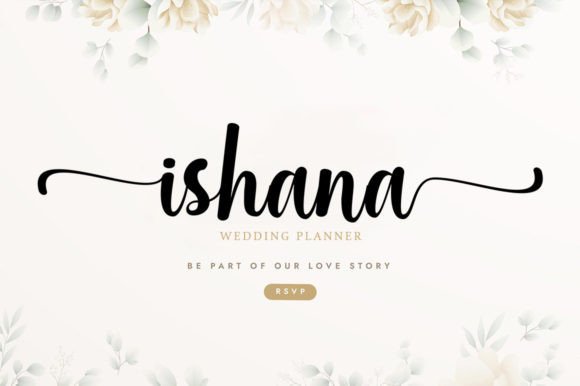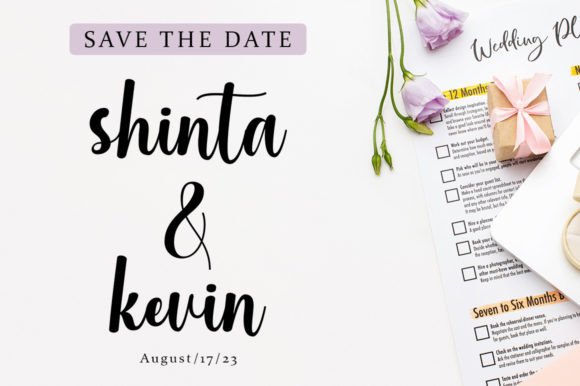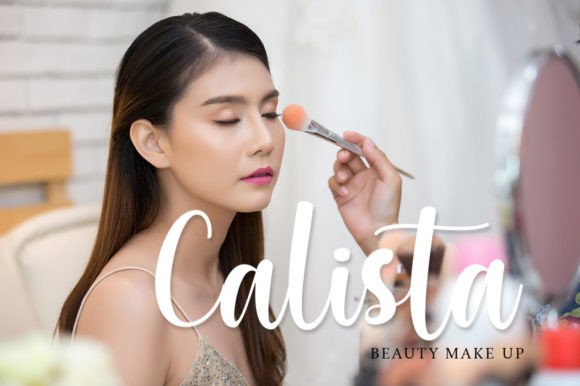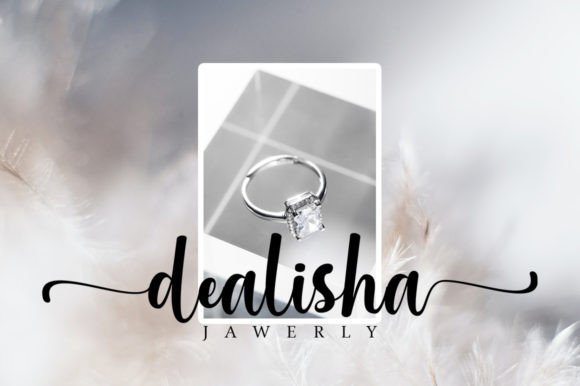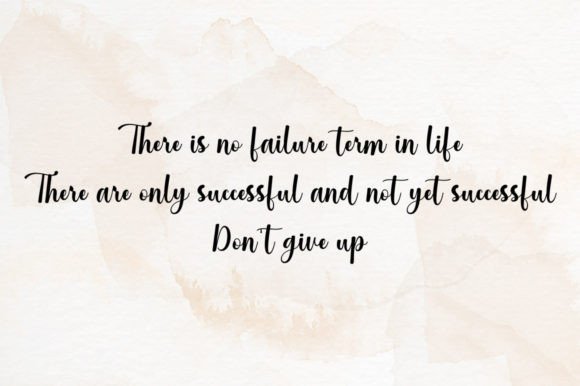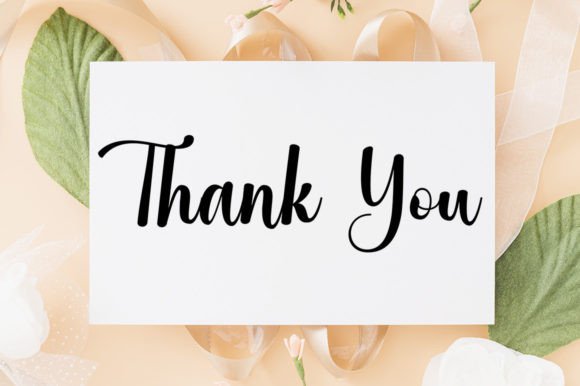
Introduction to Oh Lovely Font Font
Fonts play a crucial role in design, and the Oh Lovely Font font is a typeface that brings both character and versatility to any project. Whether you’re working on a branding project, a website, or a print design, the Oh Lovely Font font offers a unique style that can elevate your work.
Oh lovely, is a bouncy handwritten script font.
This font is perfect for quotes, shirt designs, websites, branding, kids’ designs, blogs, logos, invitations, and more .
Key Features of Oh Lovely Font Font
Why Choose Oh Lovely Font Font?
The Oh Lovely Font font is more than just a typeface – it’s a design tool that helps you communicate your message with style and clarity. Its unique character set and versatile design make it suitable for a wide range of applications, from elegant invitations to bold headlines.
With its carefully crafted letterforms and balanced proportions, the Oh Lovely Font font ensures readability and visual appeal across all mediums.
What makes Oh Lovely Font font special?
The Oh Lovely Font font stands out with its unique design, exceptional readability, and versatility across various design applications.